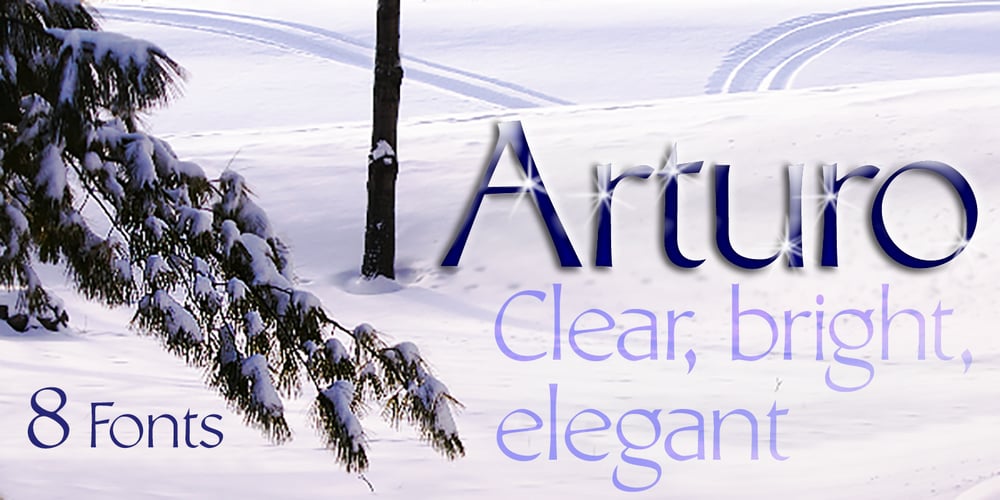
Arturo
Arturo font
Arturo Font Family was designed by David Bergsland and published by Hackberry Font Foundry. Arturo contains 8 styles and family package options. Arturo is a brand new font family drawn from the original inspiration of an old alphabet in one of Dan Solo’s Dover Clip Art books. It has moved far away from those raw roots, however. Every character has been redrawn. For example, I had a light version that I never could get working. Arturo is based on that light style and called Arturo Book. The name comes from a good friend of mine in El Paso. He was the guinea pig upon whom I foisted off the beginnings of this style so many years ago. I did several marketing pieces for him using the raw drawings. I figured that he deserved to have the family named after him, at the very least. This is a normal font family for me in that it has caps, lowercase, small caps with the appropriate figures for each case. This font has all the OpenType features in the set for 2009. There are several ligatures for your fun and enjoyment: bb gg ff fi fl ffi ffl ffy fj ft tt ty Wh Th and more. Like all of my fonts, there are: caps, lowercase, small caps, proportional lining figures, proportional oldstyle figures, & small cap figures, plus numerators, denominators, superiors, inferiors, and a complete set of ordinals 1st through infinity. Enjoy!